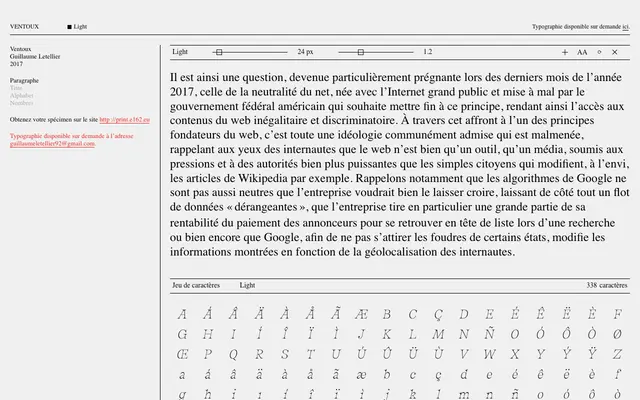
Ventoux
E162 · Guillaume Letellier · 2017
A single-weight humanist sans-serif designed by Guillaume Letellier for French independent foundry E162, available on request.
Designed by Guillaume Letellier and released in 2017, Ventoux is offered in a single Light weight with a character set of 338 glyphs. The typeface is distributed on request through E162, a small French foundry, with a printed specimen available separately. Its restrained weight range and humanist construction suit long-form editorial text.
The specimen text and single Light weight presentation suggest a refined humanist sans-serif design, with the name and French foundry context pointing toward a clean, text-oriented approach.